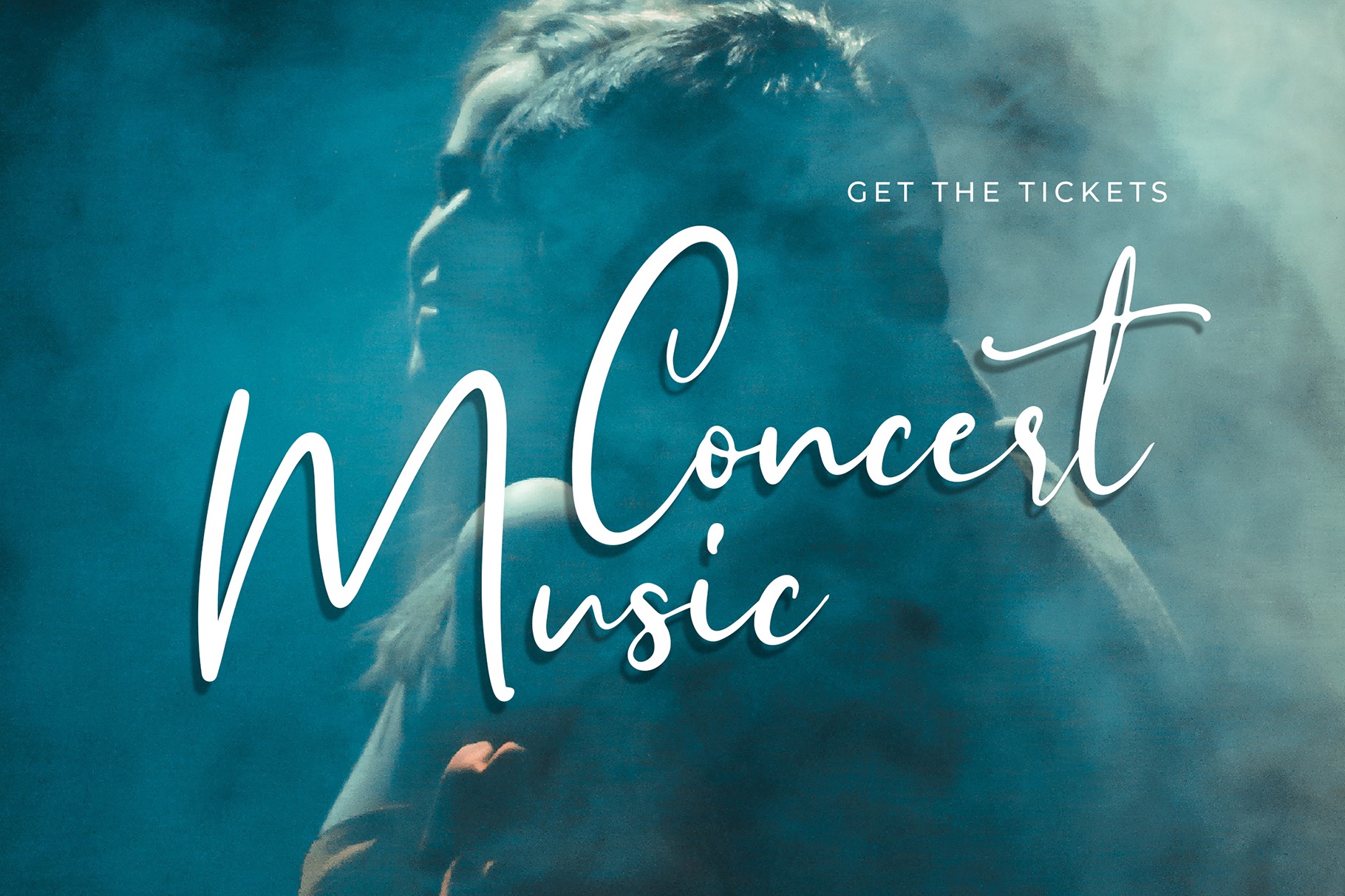
Himalaya Handwritten Font
This is a thin lettered and graceful script font crafted & designed by Denny Subagja. Himalaya is perfect for branding projects, logo, wedding designs, social media posts, advertisements, product packaging, tshirt design, product designs, label, photography, watermark, invitation, stationery and any projects.